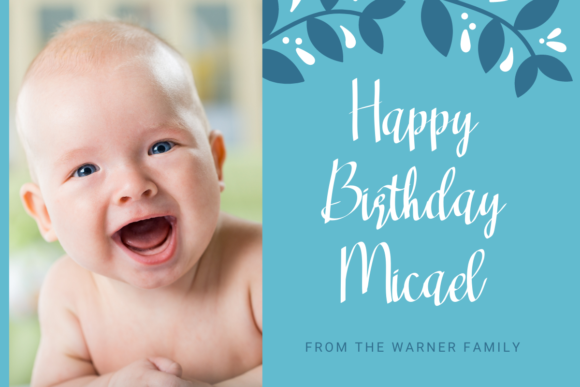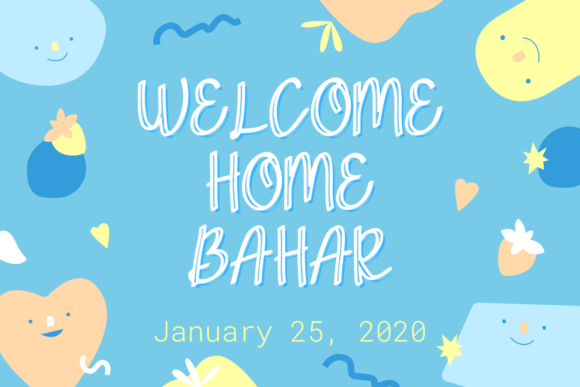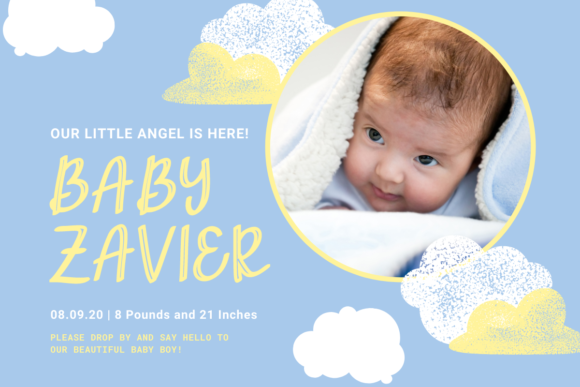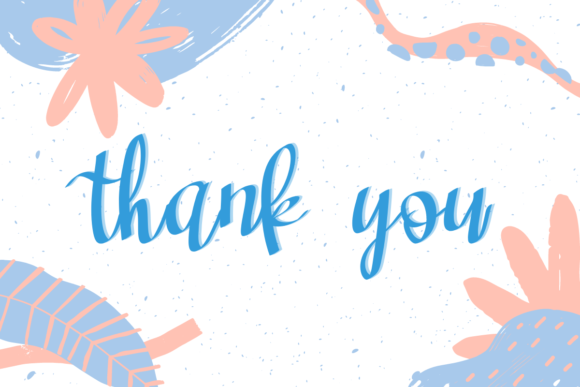
About Smart Baby Font
Smart Baby is a chic, refined script font that emanates sophistication and elegance. Its stylish alternates and ligatures make this font the perfect match for any project.